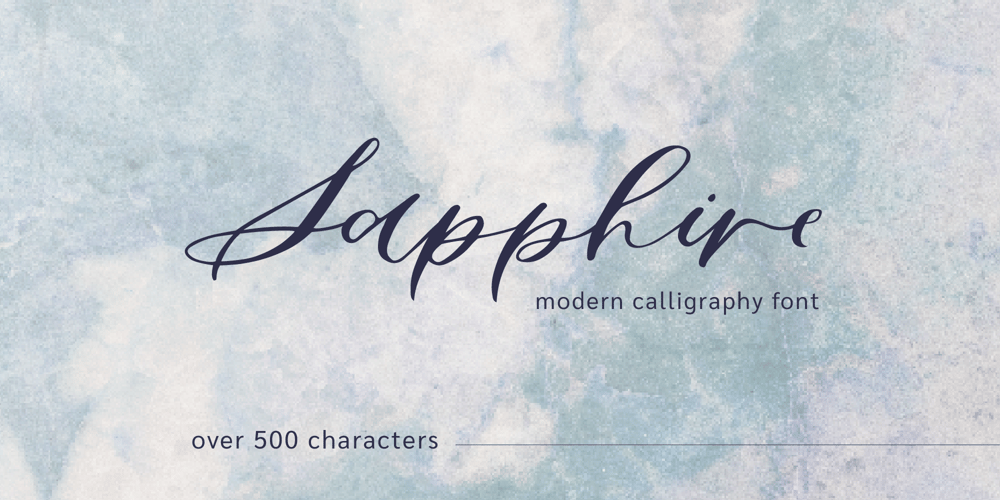
Sapphire Script Font Family was designed by Laney Ruddell and published by Design by Laney. Sapphire Script contains 1 styles and family package options. Sapphire Script is a hand-lettered modern calligraphy font based on the signature script of Design by Laney. Made with wedding invitations in mind, this font with over 500 playful, romantic characters is perfect for branding, stationery, packaging, social media templates, magazine layouts, artist prints, and more!With 3 or more characters for each uppercase letter and 35 stunning standard ligatures, you’ll be able to create that perfectly imperfect calligraphy style.Sapphire Script contains over 500 unique, coded features for a realistic, handwritten look: 35 standard ligatures, full Western European language support, over 100 stylistic alternates, ordinals (1st, 2nd, 3rd, etc.), 2 alternate number sets including 1-10 Roman Numerals, and a few word glyphs (for, to, from, and).Sapphire Script was named for the street where Design by Laney began, and where I moved in downstairs from my future husband!